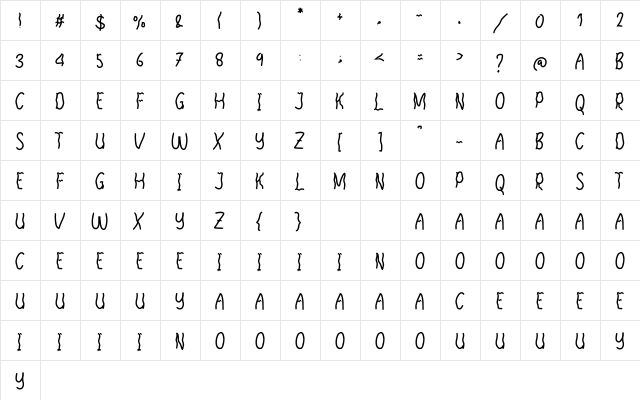
Romance Monday Regular
Design Context for Romance Monday Typeface
Romance Monday is a composed and adaptable typeface that performs quietly and consistently across a wide range of design contexts.